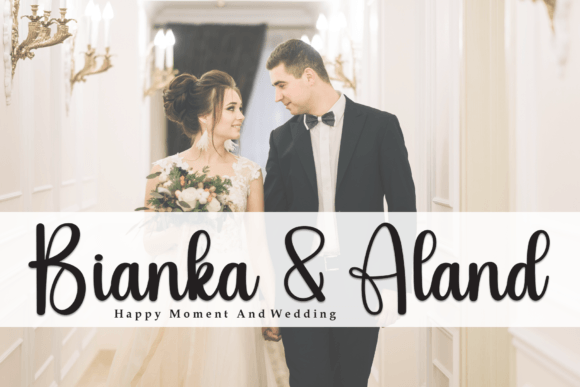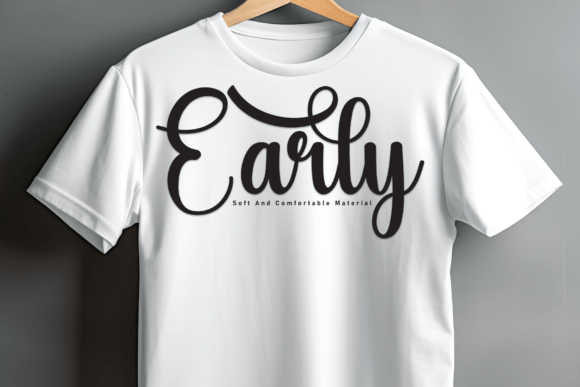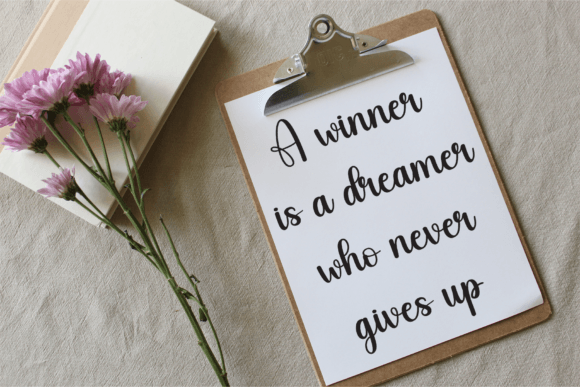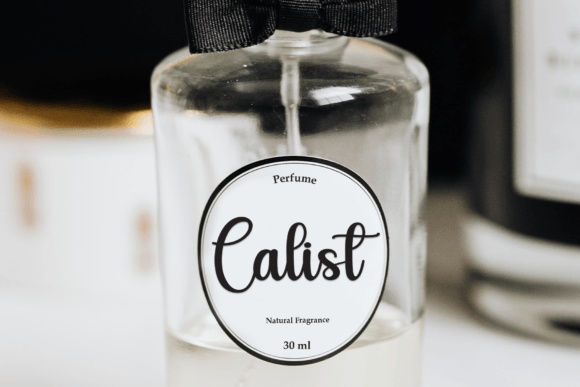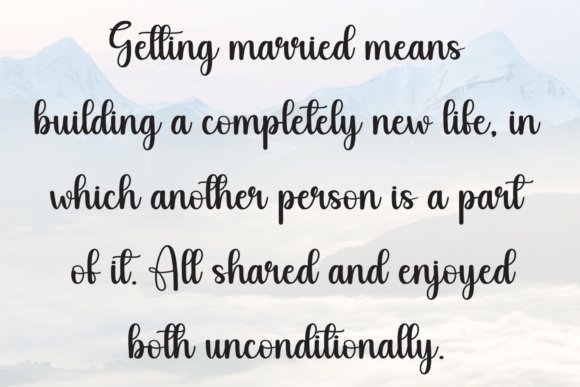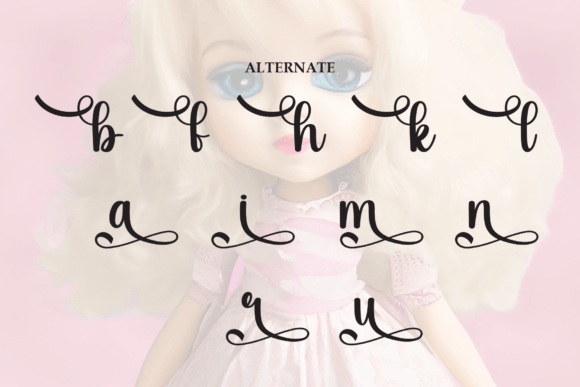
Introducing Barbie Chubby Font: The Sweet and Friendly Handwritten Display Font
Are you looking for a font that can add a touch of sweetness and friendliness to your designs? Look no further than the Barbie Chubby Font! This beautiful handwritten display font is perfect for creating fun and playful designs that are sure to capture the attention of your audience. In this article, we’ll take a closer look at the features and benefits of the Barbie Chubby Font, and explore how you can use it to take your designs to the next level.
A Sweet and Friendly Handwritten Display Font
The Barbie Chubby Font is a sweet and friendly handwritten display font that is designed to bring a touch of fun and playfulness to your designs. With its cute and charming lettering style, this font is ideal for writing wedding invitations, cards, or any other design that might need a fun touch. Whether you’re a designer, crafter, or DIY enthusiast, this font is sure to become a favorite in your collection.
Key Features of the Barbie Chubby Font
So what makes the Barbie Chubby Font so special? Here are just a few of its key features:
• Handwritten style: The Barbie Chubby Font has a beautiful handwritten style that gives it a personal and friendly feel.
• Cute and fun: This font is designed to be cute and fun, making it perfect for designs that need a playful touch.
• Display font: The Barbie Chubby Font is a display font, which means it’s designed to be used at larger sizes to make a bold statement.
• Easy to read: Despite its playful style, the Barbie Chubby Font is easy to read, making it perfect for use in a variety of designs.
Uses for the Barbie Chubby Font
So what can you use the Barbie Chubby Font for? The possibilities are endless! Here are a few ideas to get you started:
• Wedding invitations: The Barbie Chubby Font is perfect for writing beautiful and playful wedding invitations that will set the tone for a fun and romantic celebration.
• Cards and stationery: This font is also great for creating cute and fun cards and stationery for special occasions like birthdays, anniversaries, and holidays.
• DIY projects: If you’re a crafter or DIY enthusiast, the Barbie Chubby Font is a great addition to your font collection. Use it to add a personal touch to your projects, such as scrapbooking, journaling, or crafting.
• Digital designs: The Barbie Chubby Font can also be used in digital designs, such as social media graphics, blog posts, or website headers.
Tips for Using the Barbie Chubby Font
Here are a few tips for using the Barbie Chubby Font in your designs:
• Use it at larger sizes: The Barbie Chubby Font is designed to be used at larger sizes, so don’t be afraid to experiment with different font sizes to find the one that works best for your design.
• Pair it with other fonts: This font pairs well with other fonts, such as sans-serif fonts or script fonts. Experiment with different font combinations to find the one that works best for your design.
• Add embellishments: The Barbie Chubby Font is perfect for adding embellishments, such as flowers, hearts, or other graphics, to your designs.
In conclusion, the Barbie Chubby Font is a sweet and friendly handwritten display font that is perfect for adding a touch of fun and playfulness to your designs. With its cute and charming lettering style, this font is ideal for writing wedding invitations, cards, or any other design that might need a fun touch. Whether you’re a designer, crafter, or DIY enthusiast, this font is sure to become a favorite in your collection.